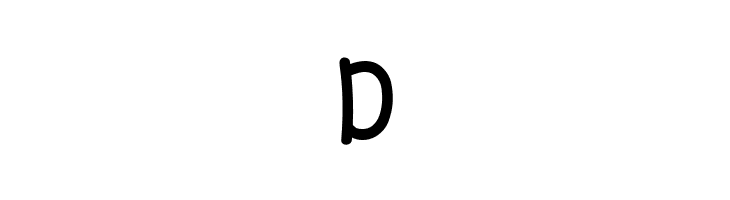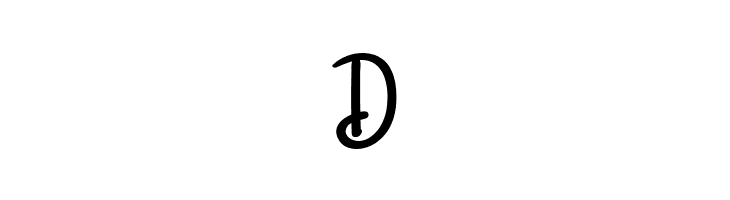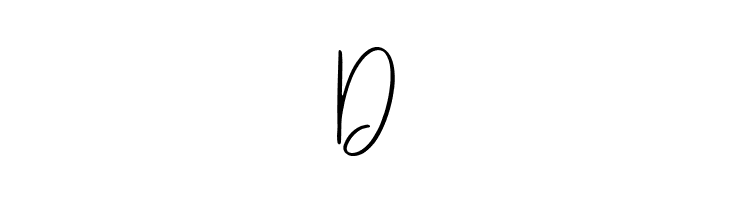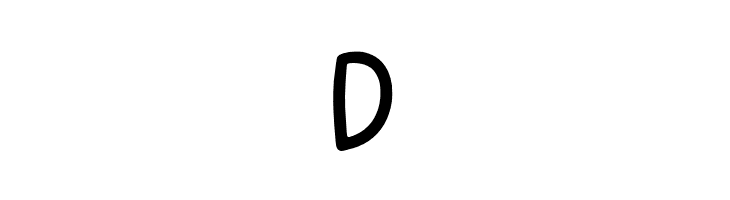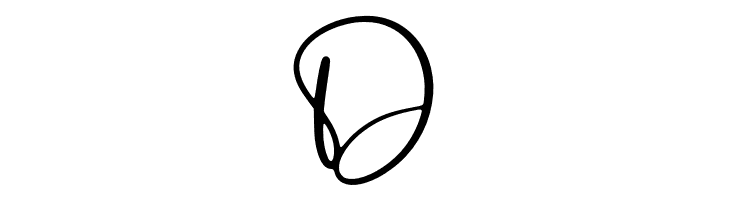
A playful, casual handwritten font with rounded edges and a friendly appearance.
A playful, handwritten font with rounded edges and a casual style.
A playful, handwritten script font with dynamic loops and smooth curves.
A lively, handwritten font with flowing, cursive-like strokes.
A playful, handwritten font with smooth, rounded edges and a casual style.
A lively and expressive handwritten font with fluid, cursive letterforms.
A playful, hand-drawn font with a whimsical and casual style.
A bold, hand-drawn style font with irregular strokes and rough edges.
A hand-drawn, eerie font with a rugged, uneven texture.
A playful, artistic font with bold, irregular strokes and geometric flair.